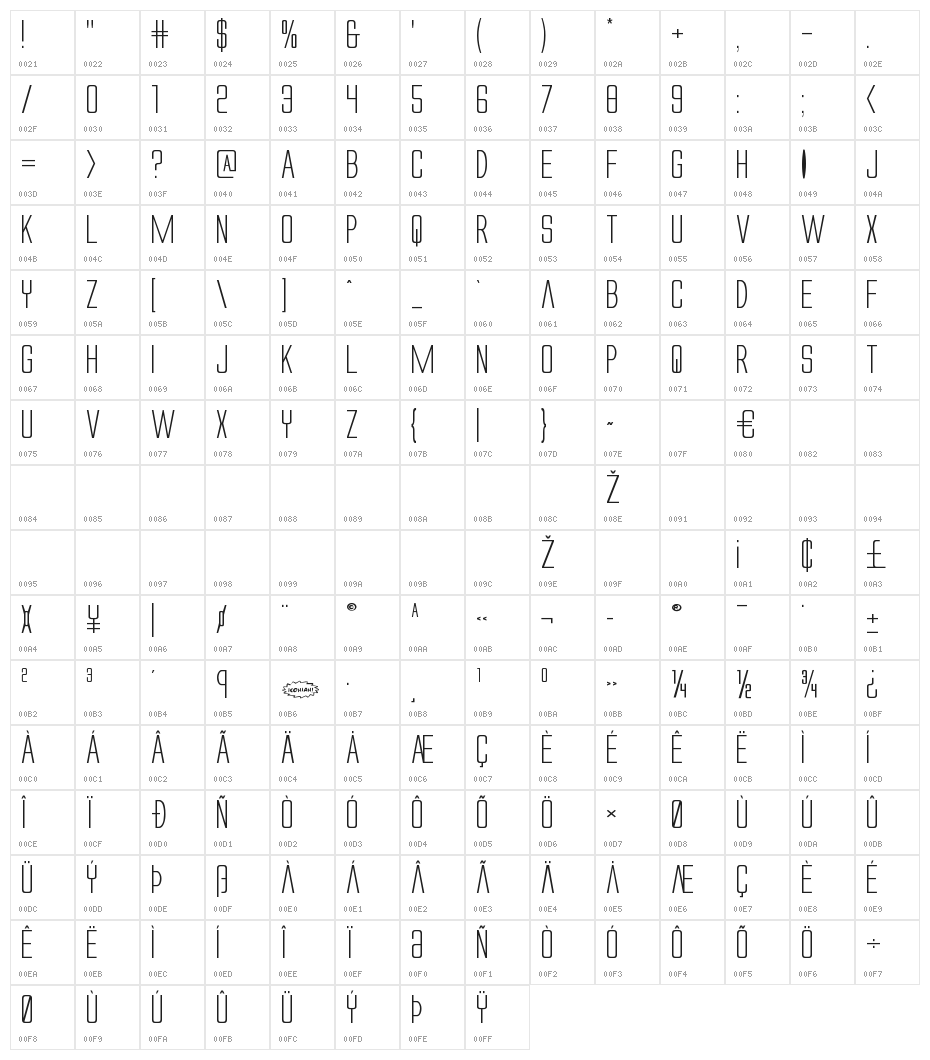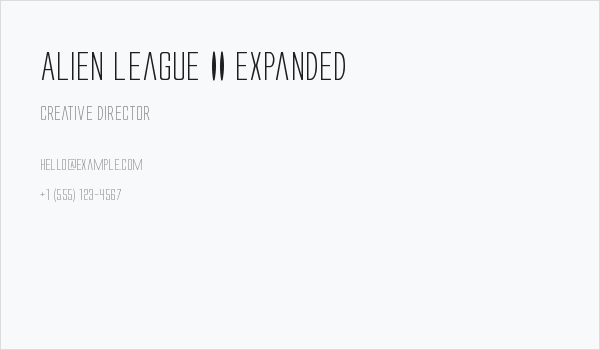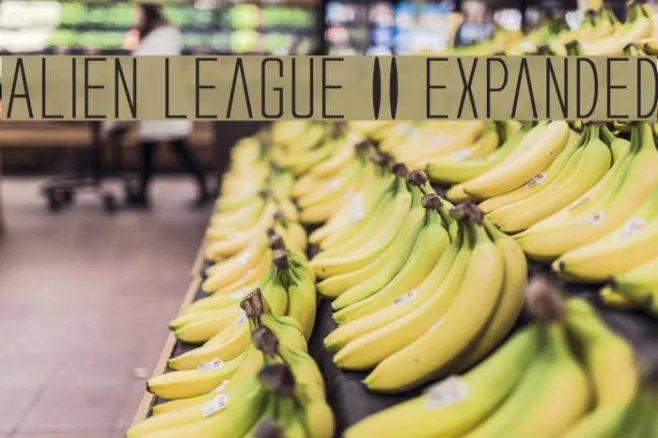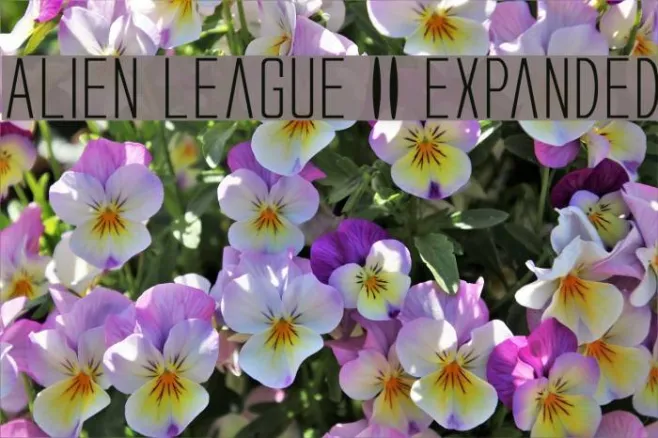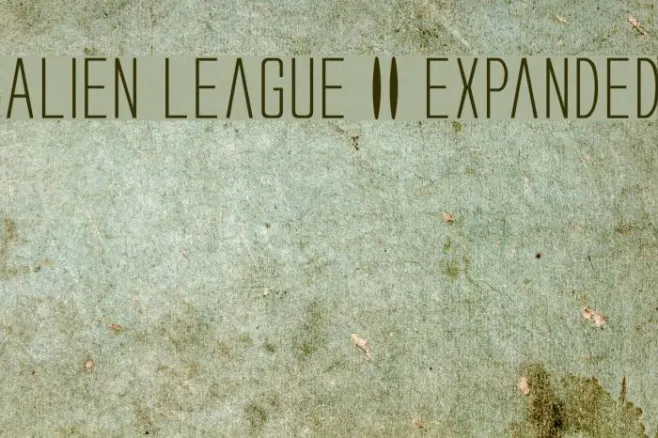
Alien League II Expanded Font
Alien League II Expanded Description
This font features a futuristic and sleek design, characterized by its tall, narrow letterforms and minimalistic style. The uppercase letters are distinct with elongated vertical lines and sharp angles, giving it a modern and tech-inspired appearance. The lowercase letters maintain a consistent height with a geometric structure, while the numbers are clean and straightforward, enhancing readability. Special characters are designed to match the overall aesthetic, with a focus on symmetry and balance. The font's expanded width adds a sense of openness and clarity, making it suitable for various digital and print applications.
| Use Case | Headlines, Logos, Digital Interfaces |
| Proposed Projects | Ideal for sci-fi themed projects, technology branding, digital interfaces, and modern advertising. |